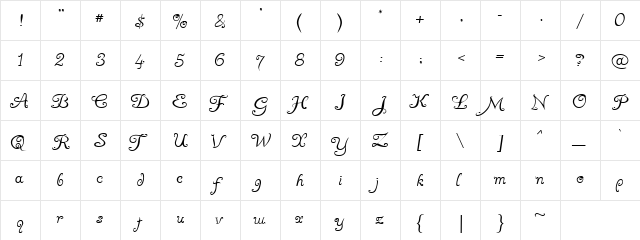
Extremely Sorry Regular
Design Context for Extremely Sorry Typeface
Extremely Sorry is a composed and adaptable typeface that performs quietly and consistently across a wide range of design contexts.